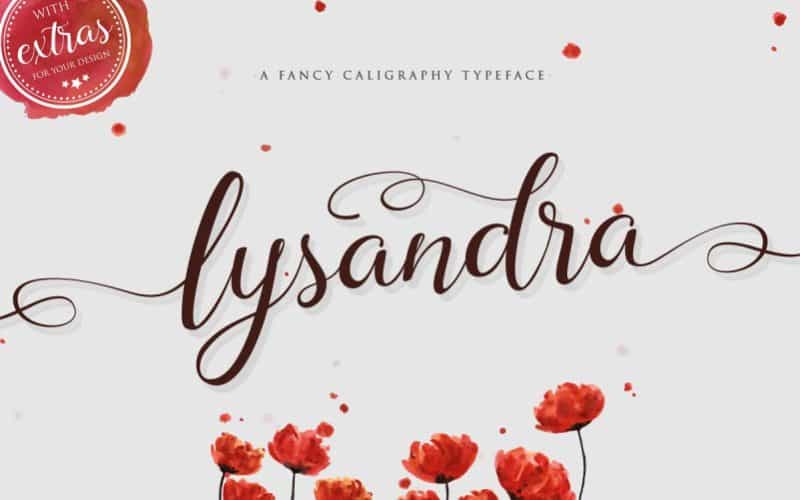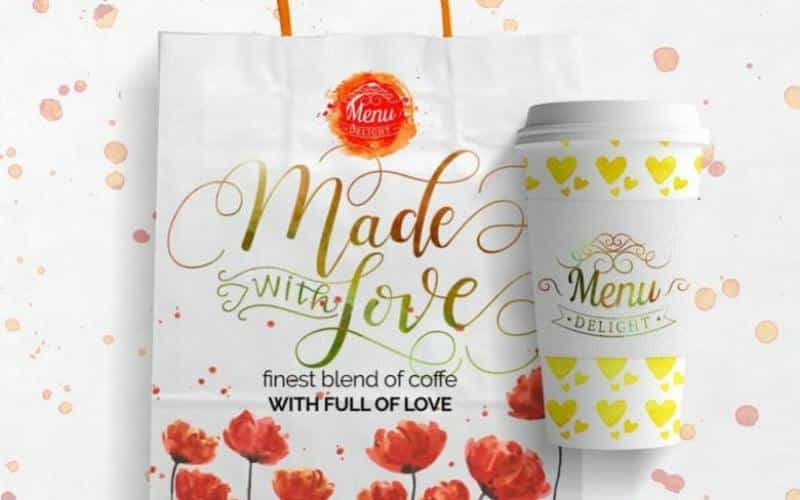
Lysandra Typeface is a modern font with more featured and made with love :It is a touchy subject, (the race). Lysandra Typeface has a full set of glyphs, so this font is perfect for wedding invitations, greeting cards, T-shirts, logos, or any other design that you create.